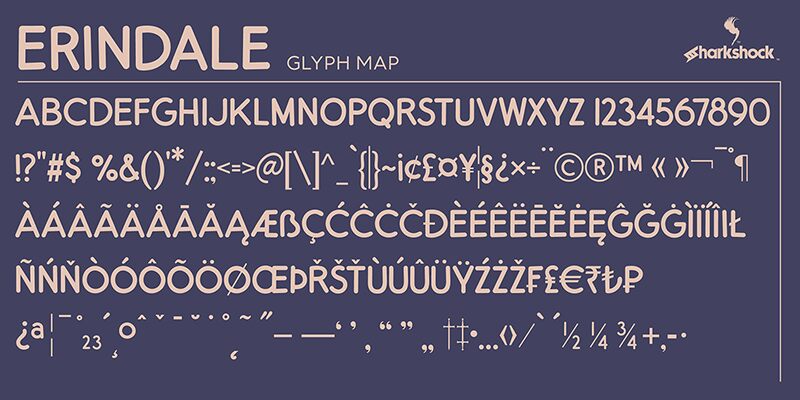
Erindale Italic
Erindale Italic font by Sharkshock is a free display font inspired by the advertisements of the 1920s and 30s. Its clean design with subtle irregularities creates a humanistic, hand-drawn appearance. The font’s gentle slant and varied letter pairs add an engaging touch, while its legibility remains perfect for subheadings that don’t overshadow main content.
Use Erindale Italic for signage, family-friendly logos, classic posters, comics, book covers, websites, apparel designs, stationery projects, brochures, invitations and greeting cards.